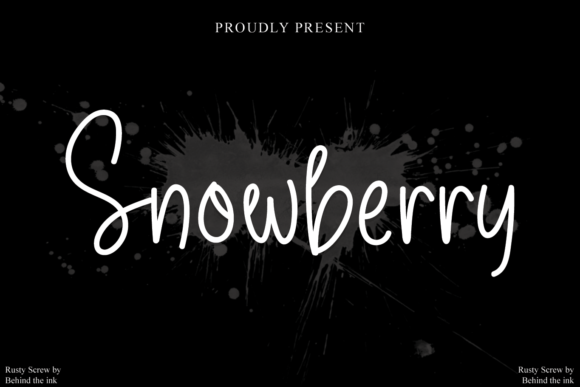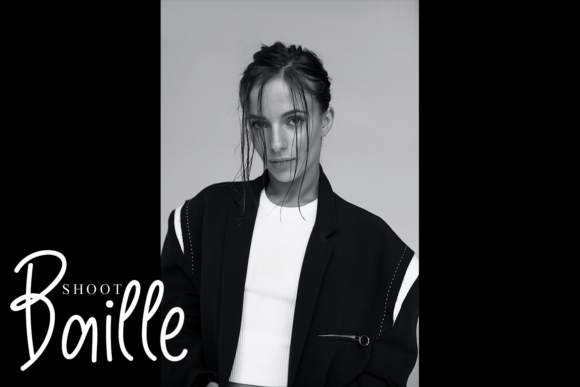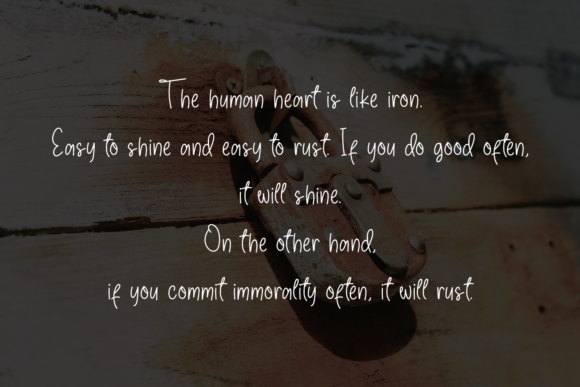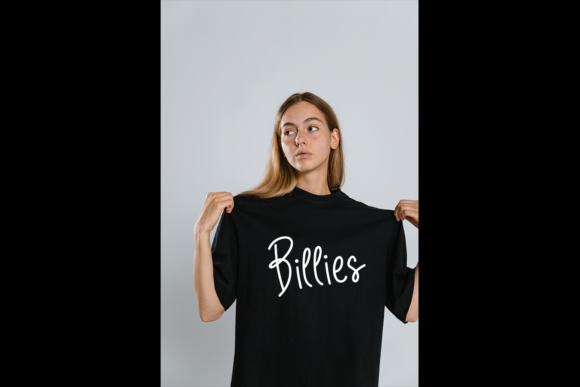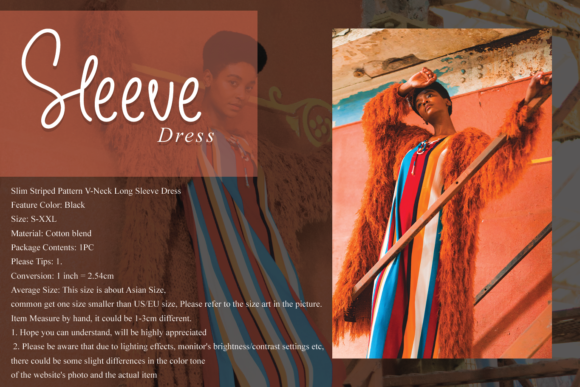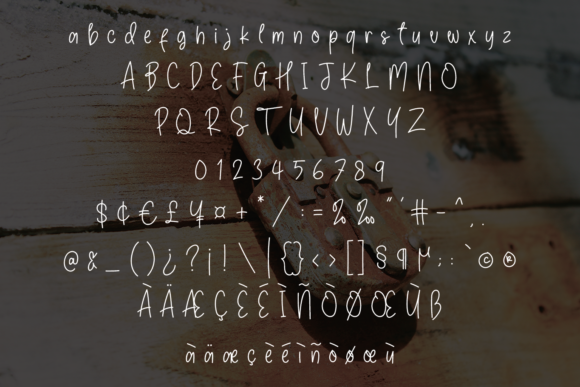
Snowberry Font
About Snowberry Font
Snowberry is an exquisite handwritten font, masterfully designed to become a true favorite. It maintains its classy calligraphic influences while feeling contemporary and fresh.